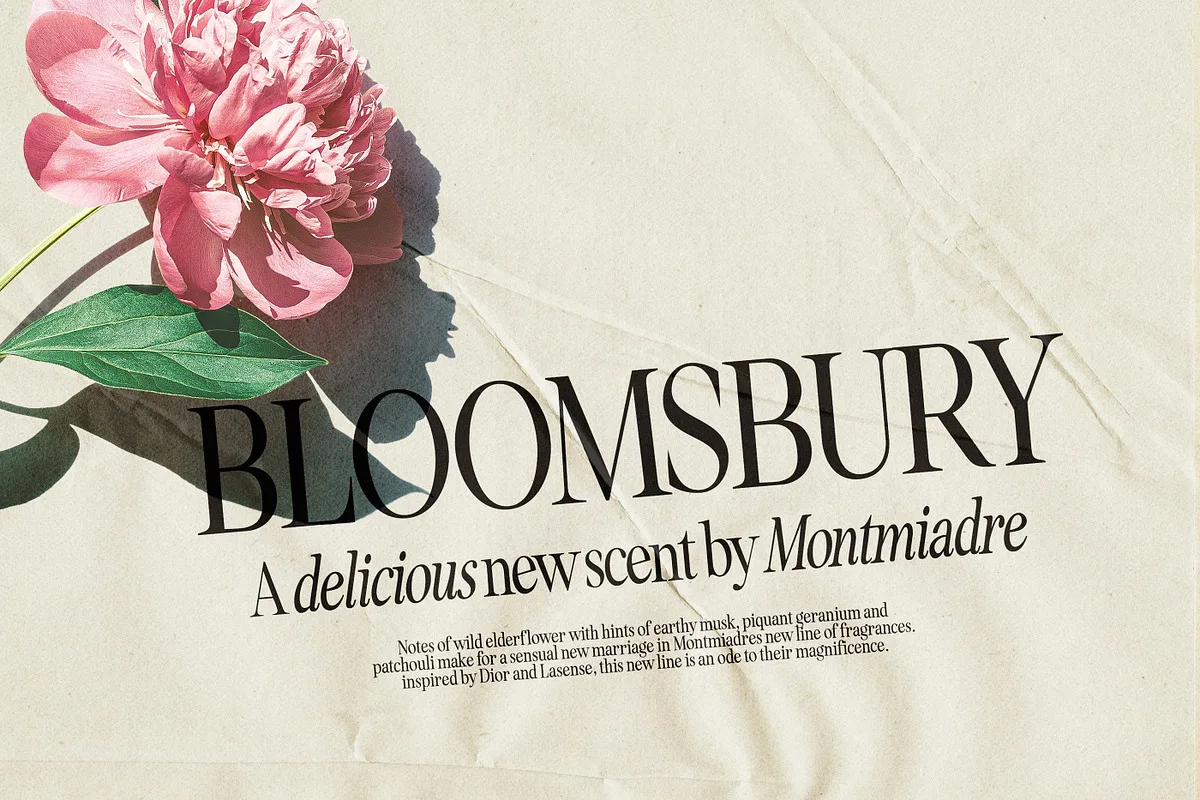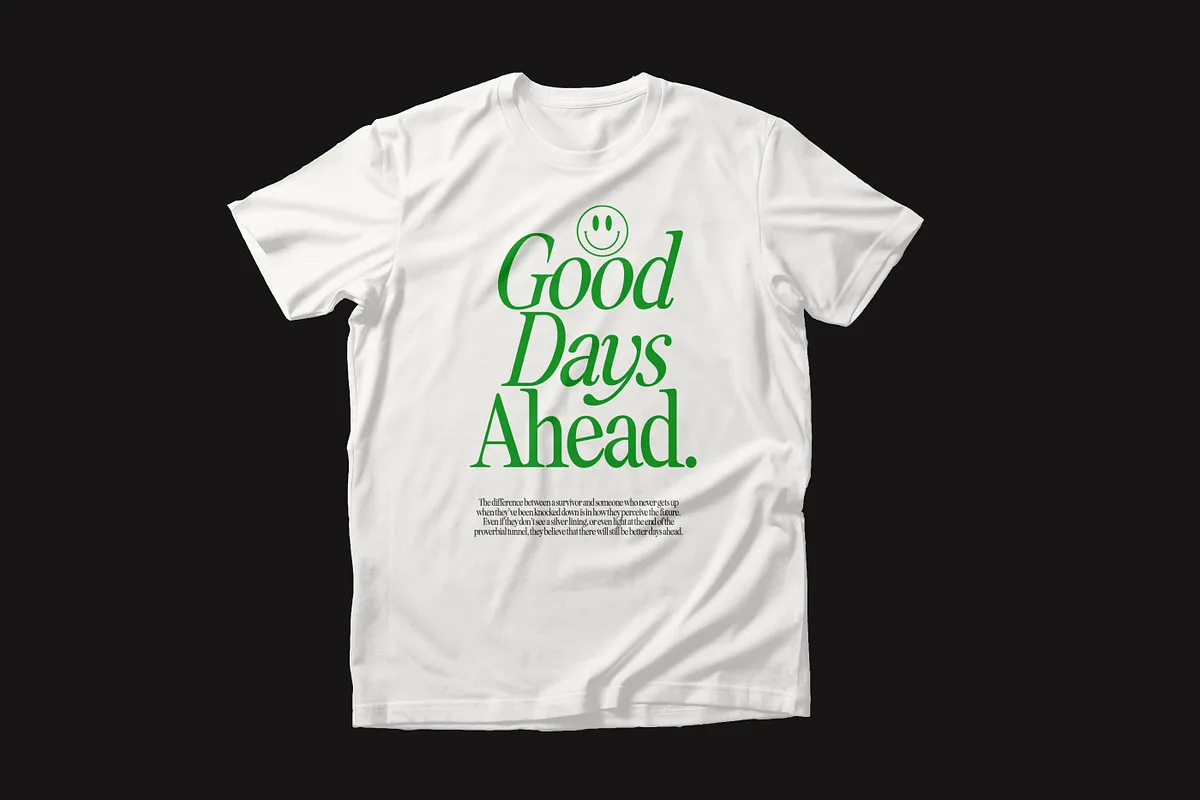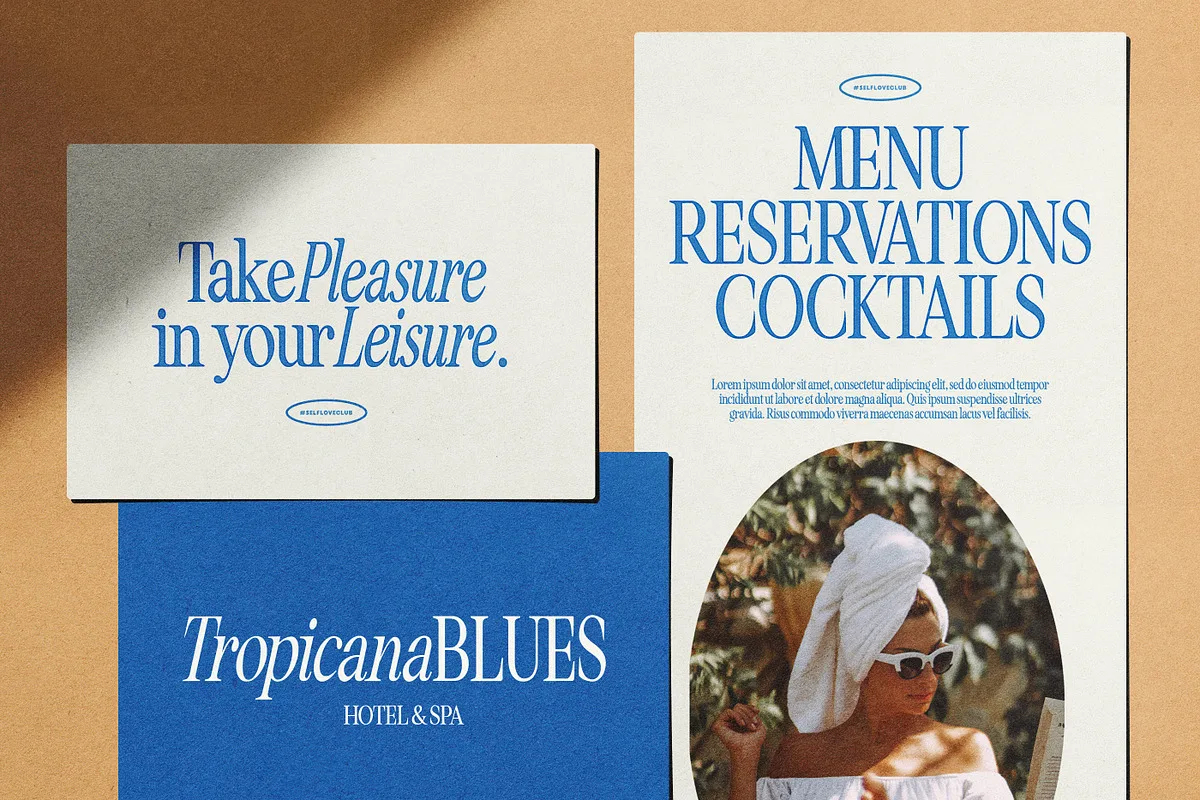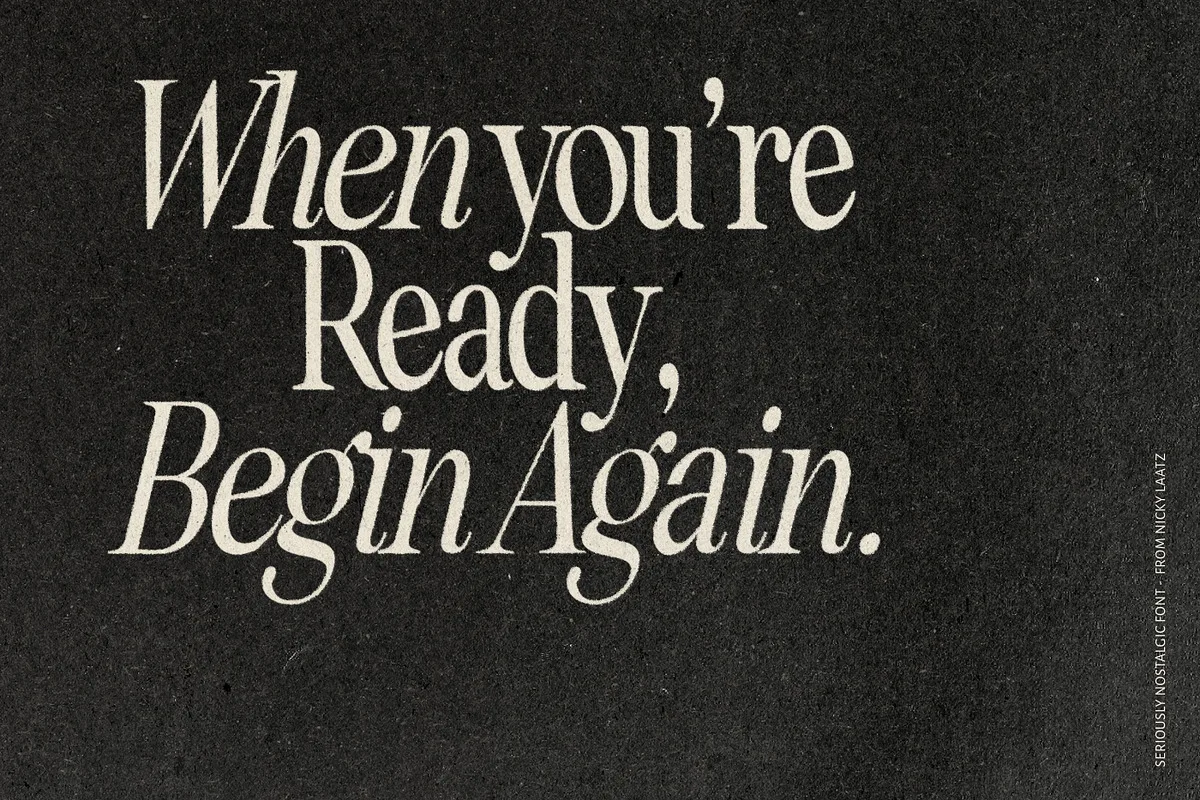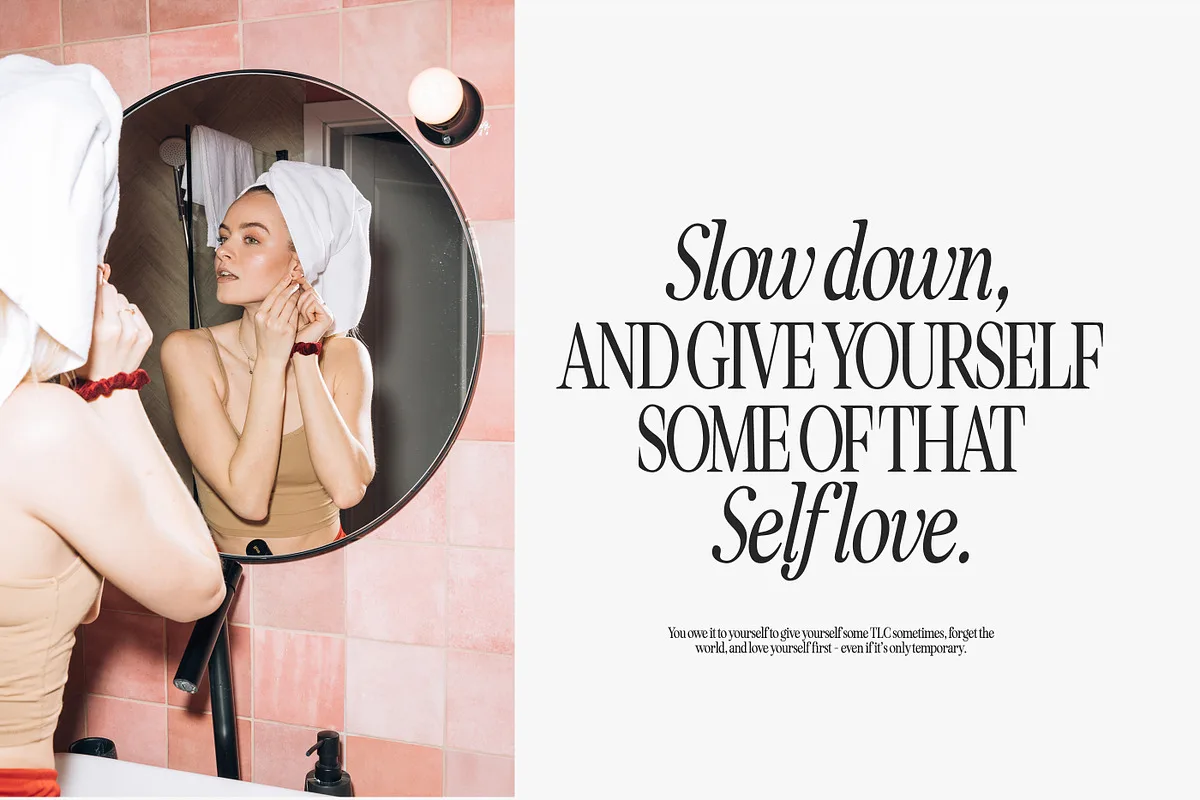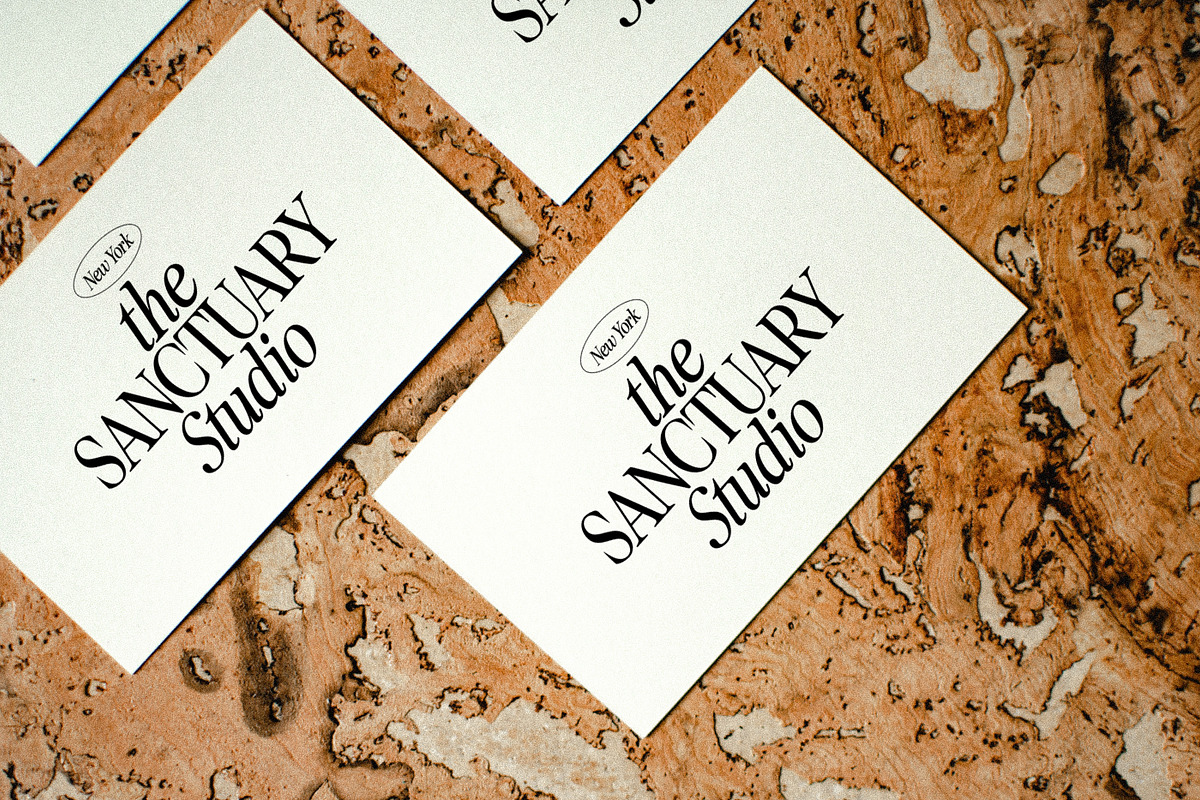
Say hello to Seriously Nostalgic! A classy eighties magazine inspired serif – with a complementary italic version 🙂 Both come in two versions one with more contrast and crisper than the other. In true Eighties style, they also come in varying degrees of Condensed form – mix and match them to create eye-catching effects.
Don’t forget to use all caps too in your mixing and matching – it adds contrast and impact to your type design.
Design tips! : Tighten your letterspacing for larger titles to create a range of looks. For small body text, remember to loosen your letter spacing a little for better legibility.
Seriously Nostalgic Font: Serif Font